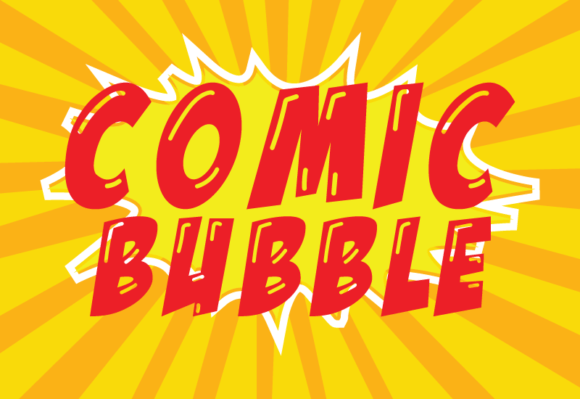
Immerse Yourself in the Fun and Lively World of Comic Bubble Font
The world of typography is vast and diverse, offering a multitude of fonts that can add character and personality to any design project. Among these, the Comic Bubble Font stands out as a distinctive and engaging choice, reminiscent of the classic comic books that many of us grew up with. This font embodies the spirit of those beloved comics and the effervescence of bubble style, making it a perfect addition to children’s projects, illustrations, and a variety of design endeavors.
The Essence of Comic Bubble Font
Comic Bubble Font is more than just a typeface; it’s an experience. It brings to mind the joy and simplicity of comic books, where colorful bubbles and bold letters are used to convey excitement, adventure, and emotion. This font captures that nostalgic feel while maintaining a professional edge, making it suitable for a range of applications, from educational materials to digital illustrations and beyond.
Playful yet Professional
What sets Comic Bubble Font apart is its unique blend of playfulness and professionalism. On one hand, it has a whimsical quality that can add a fun and lively touch to any project. This makes it particularly well-suited for children’s books, educational resources, and any design aimed at a younger audience. On the other hand, its professional feel ensures that it can be used in more formal contexts, such as presentations, marketing materials, and digital content, without appearing out of place.
Enhancing Children’s Projects
Children are naturally drawn to vibrant colors and playful typography, making Comic Bubble Font an excellent choice for projects aimed at this demographic. Whether you’re creating a storybook, educational worksheets, or promotional materials for kids’ events, this font can help make your content more engaging and accessible. Its readability and fun factor can contribute to a more enjoyable learning experience, making it a valuable tool for educators and designers alike.
Bringing Life to Illustrations
Illustrations are a fantastic way to bring stories to life, and the right typography can enhance their impact. Comic Bubble Font offers a visually appealing way to add dialogue, captions, and text elements to illustrations, infusing them with personality and dynamism. This can be particularly effective in digital art, children’s books, and graphic novels, where the interaction between text and image is crucial to the narrative.
Increasing Creativity with Comic Bubble Font
One of the significant advantages of using Comic Bubble Font is its ability to inject creativity into designs. Its quirkiness, paired with a professional touch, makes it a versatile choice for a plethora of design projects. Whether you’re working on a logo, a website, a children’s app, or marketing materials, this font can add a distinctive flair that sets your work apart. Its eye-catching appearance can draw viewers in and spark their imagination, making your content more memorable.
Versatility in Design
The versatility of Comic Bubble Font is one of its most compelling features. It can be used across various platforms and in different contexts, from digital media to print. This adaptability makes it a valuable asset for designers who need a font that can keep up with their creative demands. Whether you’re designing for web, mobile, or print, Comic Bubble Font can provide a consistent and engaging visual experience.
Tips for Using Comic Bubble Font Effectively
To get the most out of Comic Bubble Font, consider the following tips:
- Mix and Match: Combine Comic Bubble Font with other fonts to create contrast and hierarchy in your design. Its playful nature pairs well with simpler, more straightforward typefaces.
- Color It Right: Take advantage of the font’s potential by using vibrant colors that match the playful theme. However, ensure that the text remains readable against different backgrounds.
- Consider Context: While Comic Bubble Font is versatile, it’s essential to consider the context in which you’re using it. Ensure that the font aligns with the tone and purpose of your project.
- Experiment with Sizes: Don’t be afraid to experiment with different font sizes. Comic Bubble Font can make a significant impact when used in large headings or titles, and it’s also readable in smaller sizes for body text.
Comic Bubble Font offers a unique blend of fun and professionalism, making it an excellent choice for a wide range of design projects. Its ability to evoke the nostalgia of classic comics while providing a modern, engaging look can enhance children’s projects, illustrations, and much more. By incorporating Comic Bubble Font into your designs, you can create visually appealing and imaginative content that captures the attention of your audience and leaves a lasting impression.
Embracing the Playful Professionalism of Comic Bubble Font
In a design world that often takes itself very seriously, Comic Bubble Font stands out as a breath of fresh air. Its playful professionalism offers a reminder that design doesn’t have to be boring or conventional to be effective. By embracing fonts like Comic Bubble, designers can push the boundaries of creativity, creating more engaging, memorable, and impactful content.